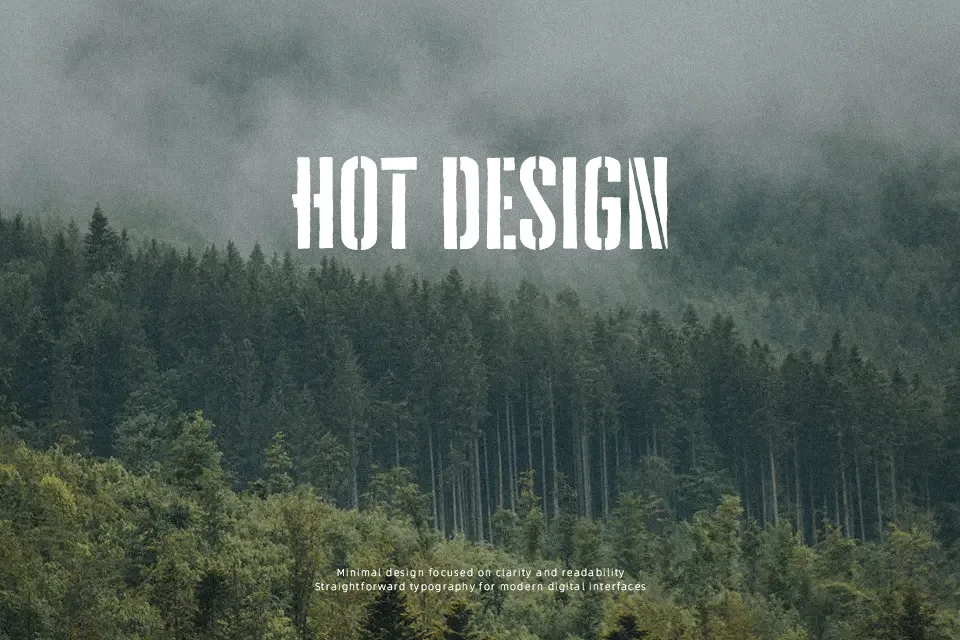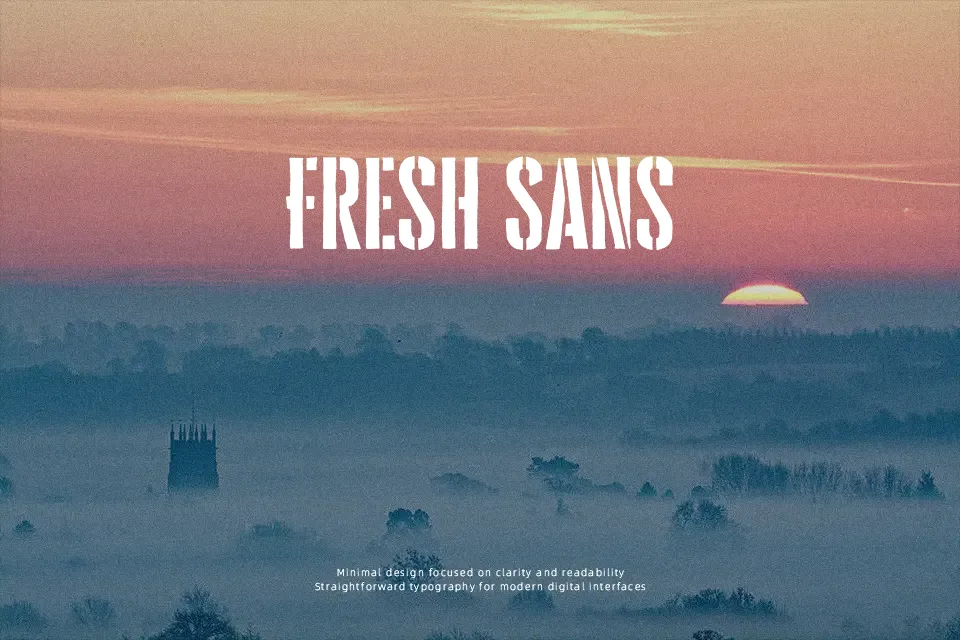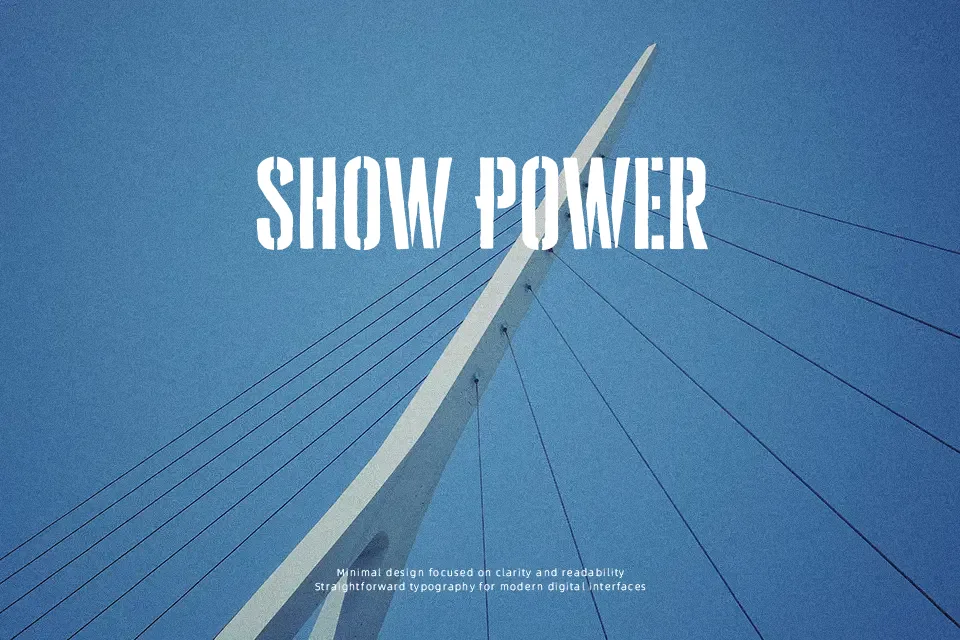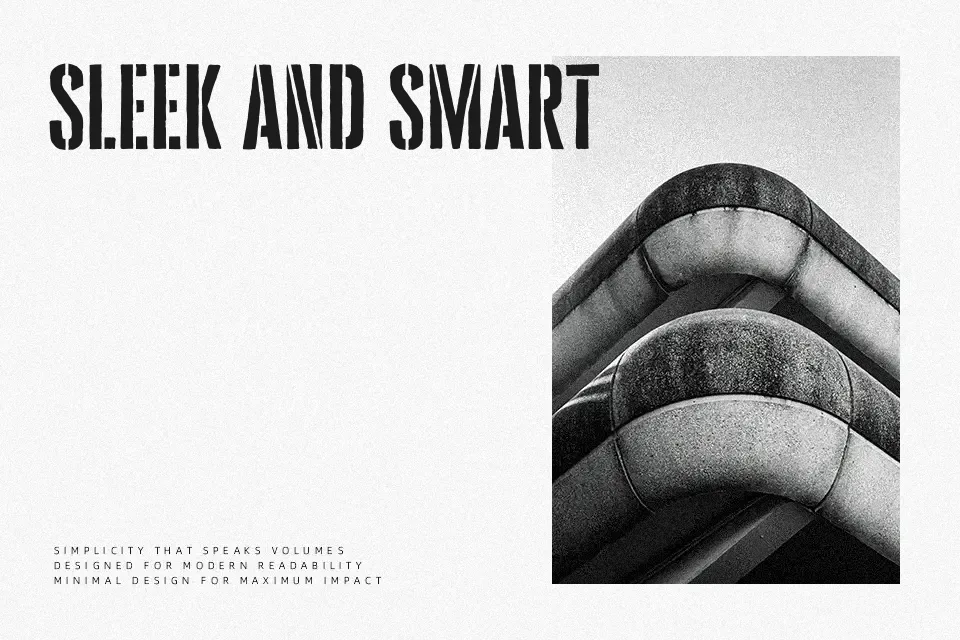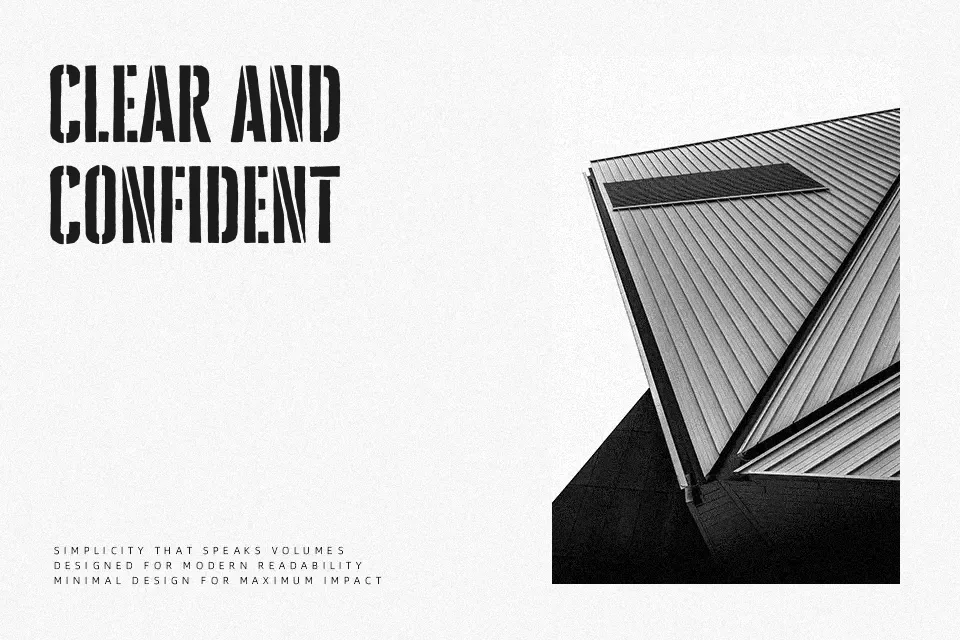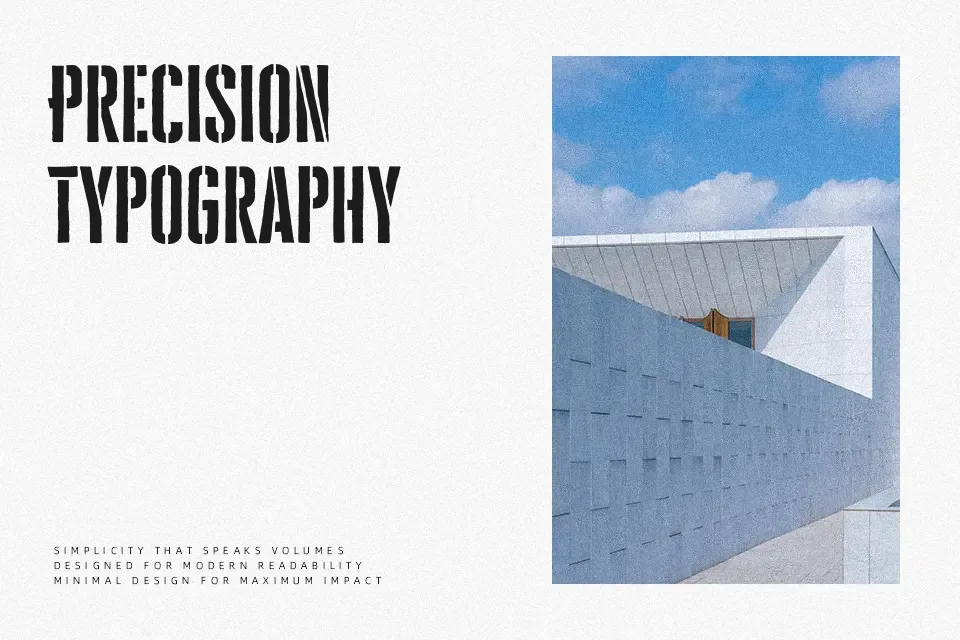
Cheddar Gothic Stencil Font
Designed by Adam Ladd
A rugged retail label or merchandise graphic benefits greatly from Cheddar Gothic Stencil Font, an all-caps display typeface characterized by condensed vertical proportions and prominent cutout bridges. The solid, unbracketed strokes display slight organic texture along the contours, giving the overall design a tactile, hand-crafted feel. Spacing between characters is set relatively snug, ensuring that title sequences hold together firmly across large formats. Letterforms remain instantly recognizable at display scales, though the heavy weight and internal stencil gaps become less defined in small caption text. As a result, dense paragraphs and continuous editorial reading are outside its practical scope.
Best For: craft beverage packaging, concert event posters, apparel graphics, storefront signage
Not Ideal For: continuous paragraph text, legal contracts, mobile UI body copy, dense spreadsheet data
Perfect for branding, headline, and packaging, with a bold and display style.